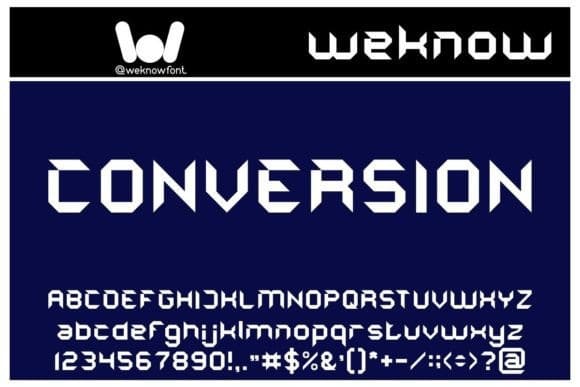
Conversion Display Font
Conversion Display Font is a trendy and cool display font with a strong and expressive character. Its versatility will make it suitable for a wide pool of projects that need a modern vibe.